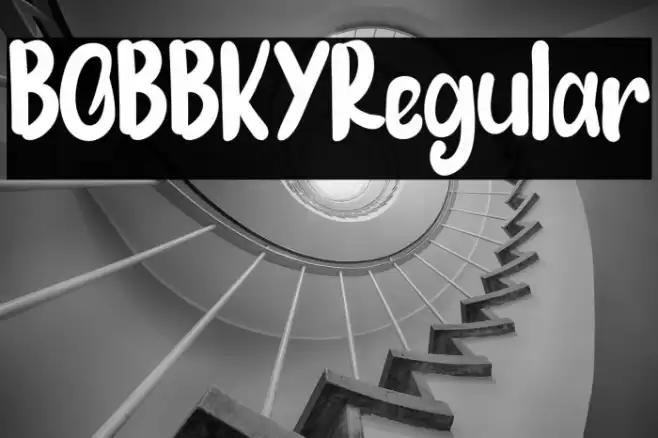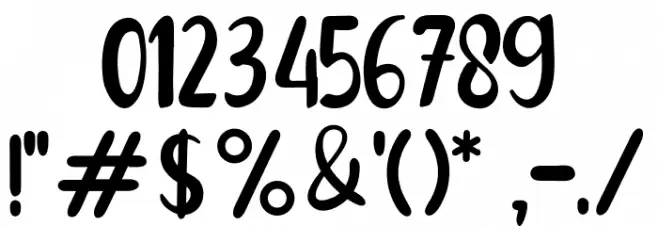
BOBBKYRegular Font
BOBBKYRegular Description
This playful and bold font features thick, rounded strokes that give it a friendly and approachable appearance. The characters are slightly irregular, adding a hand-drawn feel that enhances its charm. The uppercase and lowercase letters maintain a consistent style, with a slight slant that adds dynamism. The numbers and special characters are equally bold and maintain the overall whimsical aesthetic. This font is perfect for projects that require a fun and engaging look, such as children's books, playful branding, or creative posters.
A bold, playful font with rounded, hand-drawn characters from Regular fonts.
- Proposed Projects: Ideal for children's books, playful branding, creative posters, and casual invitations.
- Overall Style: Playful, Whimsical